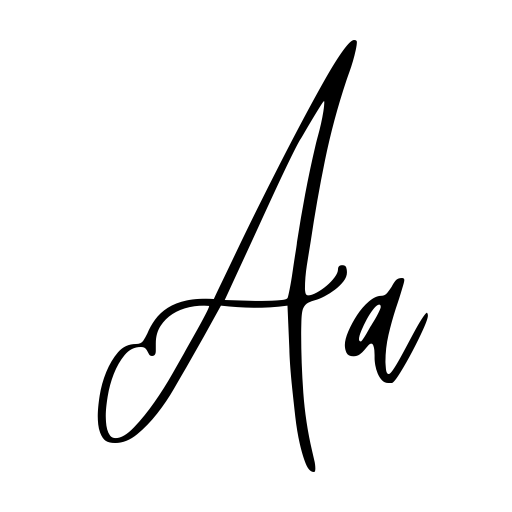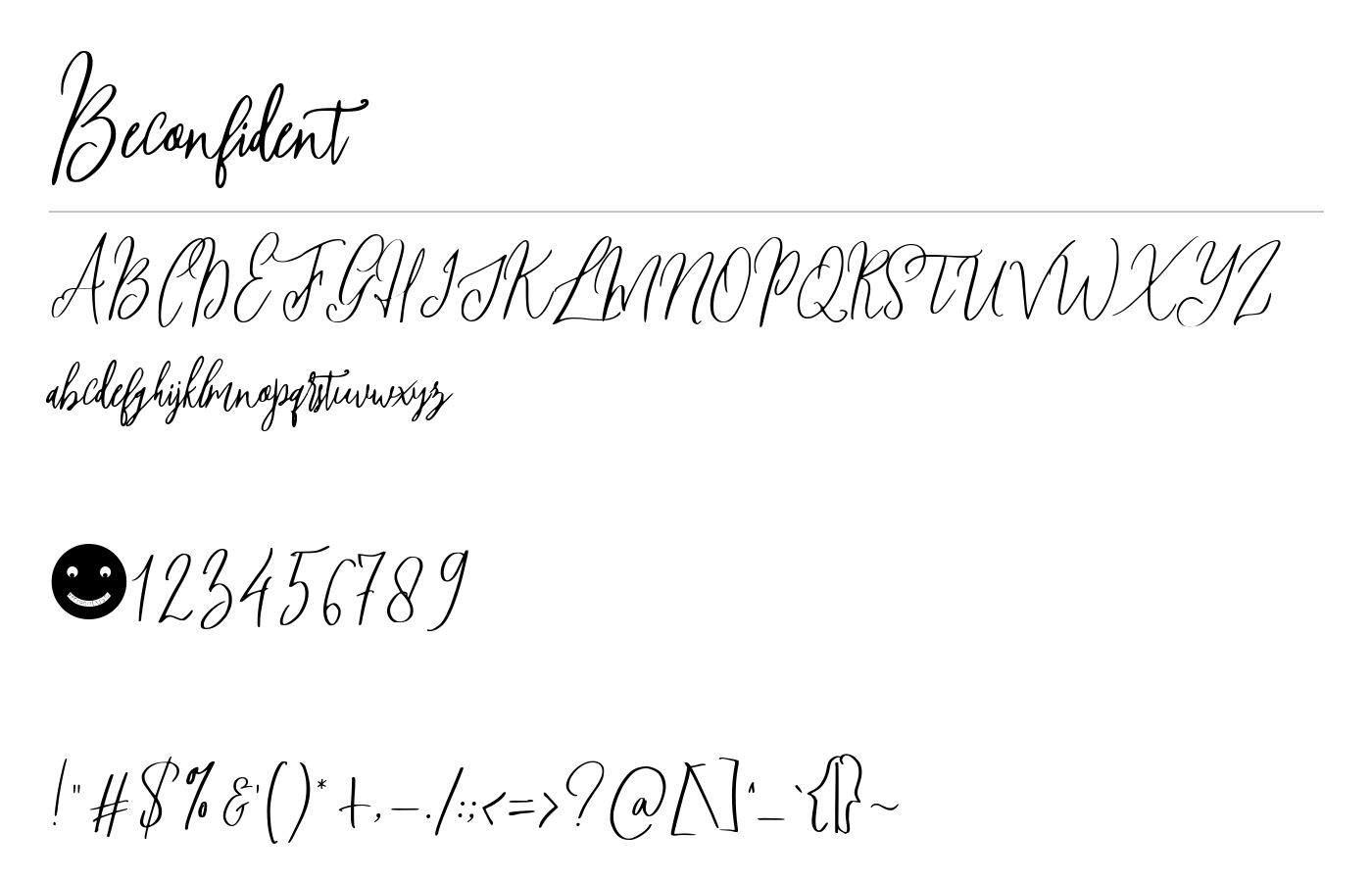
Beconfident Font is an elegant, slender script typeface with a graceful, handwritten style that combines delicate thin strokes and fluid curves. Its tall, narrow letterforms and gentle variations in stroke width give it a refined and personal feel, perfect for stylish branding, invitations, and sophisticated editorial projects that need a touch of charm and confidence. This font shines in designs where a modern, artistic, and feminine look is desired, adding a sense of warmth and individuality.
Beconfident Font
About Beconfident Font
| Designer | Rachma |